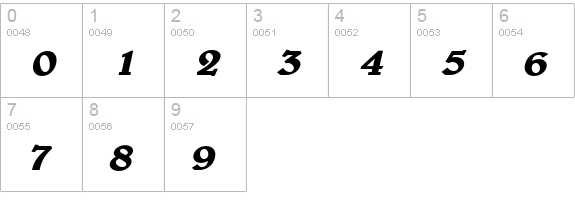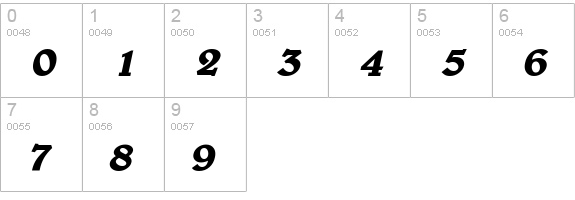
Blew Wide Bold Italic Font Details
Blew Wide Bold Italic is a strong, high-contrast, extended-width, italic variant in the Blew typeface family \xE2\x80\x94 well suited to headlines, attention-grabbing titles, and strong calls-to-action.
Introducing Blew Wide Bold Italic font, a stunning typeface that exudes elegance and sophistication. This modern and versatile font is perfect for adding a touch of boldness to any design project. With its unique blend of boldness and italics, Blew Wide Bold Italic font is sure to make a statement and capture attention. The best part? Blew Wide Bold Italic font is available for free download at FontsMarket.com. This means you can easily access this stylish font and incorporate it into your projects without any cost. Whether you're designing a logo, creating a poster, or working on a website, Blew Wide Bold Italic font is the perfect choice to elevate your design. Don't miss out on this fantastic opportunity to enhance your projects with Blew Wide Bold Italic font. Download it for free today and let your creativity soar!